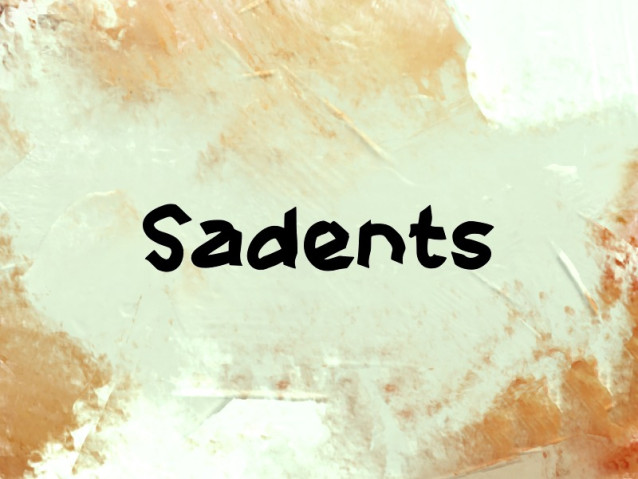
Sadents Font
Sadents Font is a captivating display font that blends the raw energy of handwriting with a bold, carved aesthetic. Its distinctive character is defined by broad, rapid strokes, giving each letter a sense of movement and organic texture.